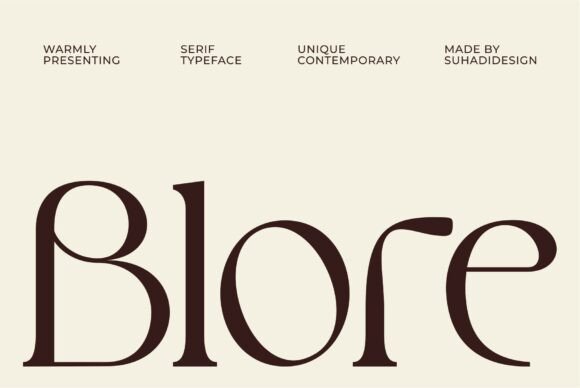
The Blore Font: Elevate Your Designs with Elegance and Style
I’ll never forget the design project that led me to discover the Blore font. I was working on a magazine layout, and my client had a very specific vision: elegant, modern, and classy. I scoured the internet for the perfect font, but nothing seemed to fit the bill. That was until I stumbled upon Blore. This stunning serif font has since become a staple in my design toolkit, and I’m excited to share its awesomeness with you! 😊
An Honest Review of Blore Font
So, what makes Blore font so special? Let’s dive into the good stuff and a few quirks I’ve noticed.
What I Love About Blore Font
- ✨ Elegant and modern design: Blore font boasts a sleek, contemporary look that’s perfect for a wide range of design projects.
- ✅ Versatile: This font is suitable for magazines, books, publications, branding, business cards, social media, and more.
- 💯 High-quality: The font is well-crafted, with attention to detail and a clear focus on aesthetics.
While Blore font is amazing, it’s not perfect. Here are a few things to keep in mind:
- ⚠️ Some characters may require manual kerning: As with any font, you may need to adjust kerning for certain character combinations to achieve optimal results.
The Story Behind Blore Font
Blore font was designed with elegance and versatility in mind. The creator, a renowned typographer, aimed to craft a font that would meet the demands of modern design while maintaining a classic, sophisticated feel. The result is a font that’s both timeless and trendy.
Q: What type of projects is Blore font best suited for?
A: Blore font is perfect for a wide range of projects, including magazines, books, publications, branding, business cards, social media, and more.
Q: Is Blore font suitable for body text?
A: While Blore font is elegant and stylish, it may be better suited for headlines and titles. For body text, consider a font with better readability.